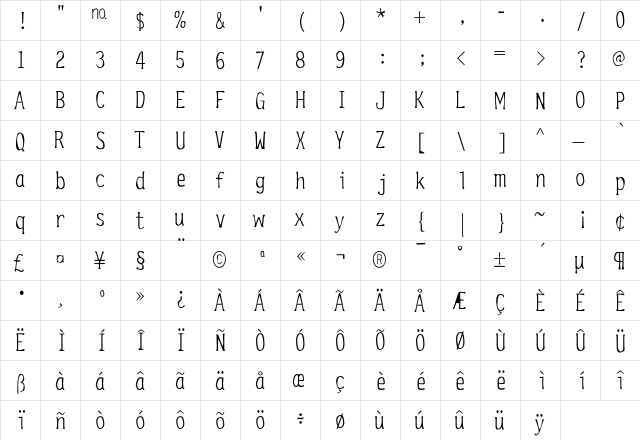
GothicBlond Slim
Design Context for GothicBlond Typeface
GothicBlond takes a clean, functional approach — its unadorned letterforms prioritise legibility and work reliably across screen and print environments.
Font Pairing: Works well alongside a characterful serif or display font that can carry the expressive load while GothicBlond handles the functional copy.
Pro Tip: Pair GothicBlond with a display or serif font for headlines — its neutral character makes it an excellent supporting player in complex typographic systems.